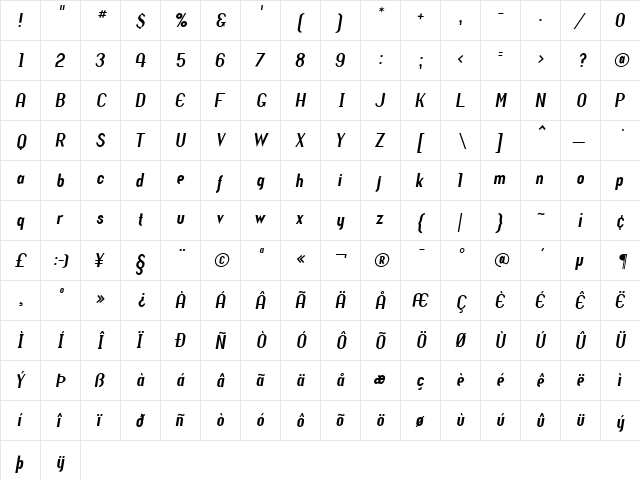
Revival Medium Italic
Design Context for Revival Typeface
Revival is a composed and adaptable typeface that performs quietly and consistently across a wide range of design contexts. The dynamic lean of this cut emphasises speed and emphasis in any layout.
Pro Tip: Try Revival for annotation and caption copy alongside an upright companion — the contrast in angle creates a dynamic but ordered typographic system.